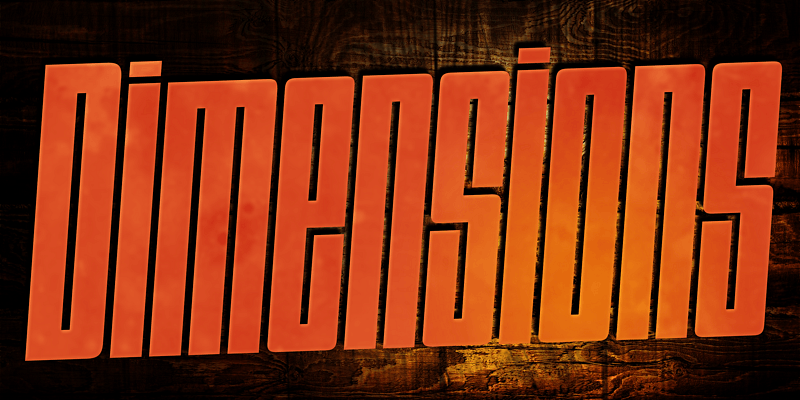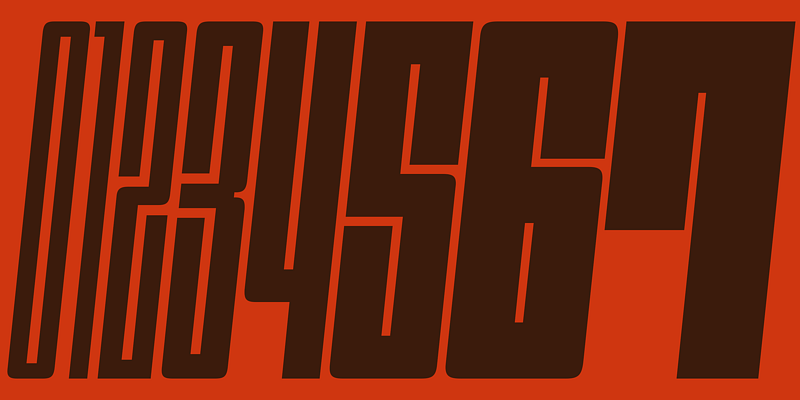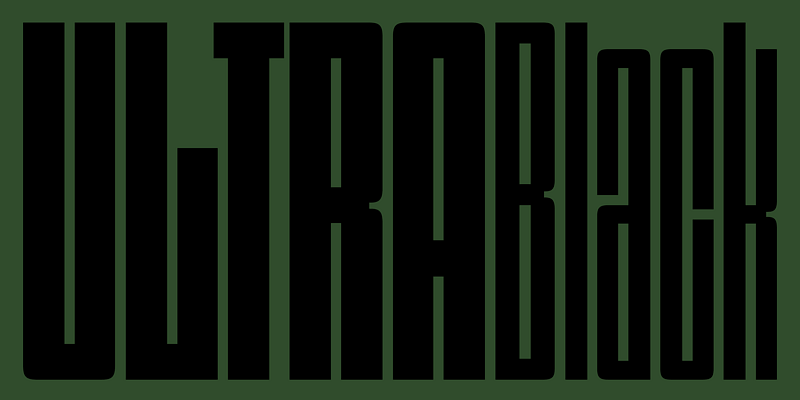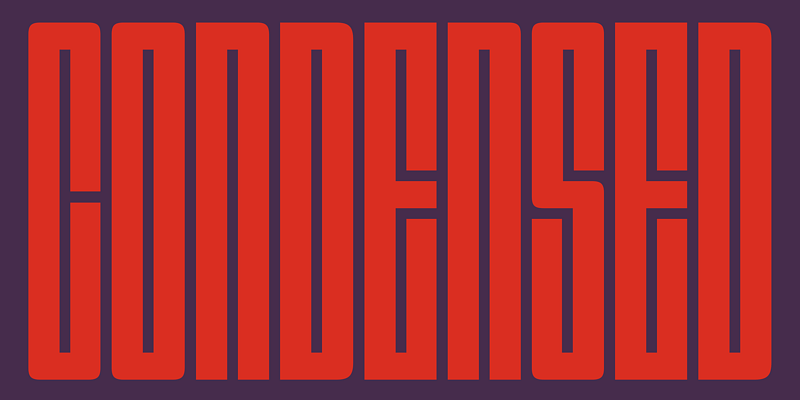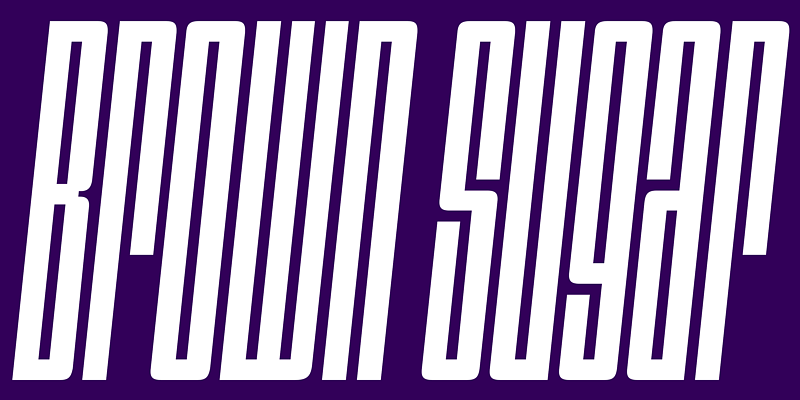
Dimensions is the one of the most condensed, black and skinny fonts in the world. All weights have accented characters and small capital glyphs that can be accessed by OpenType smcp feature.